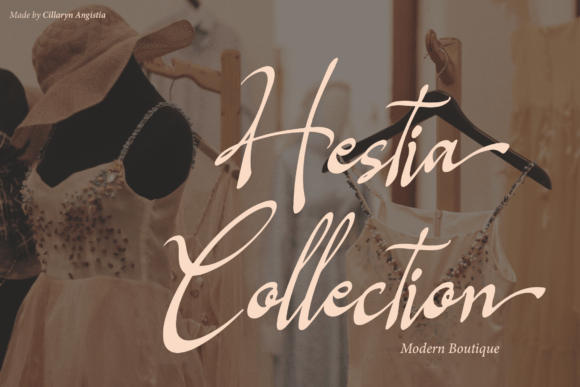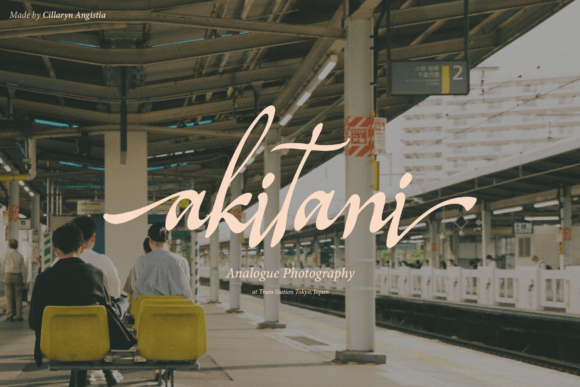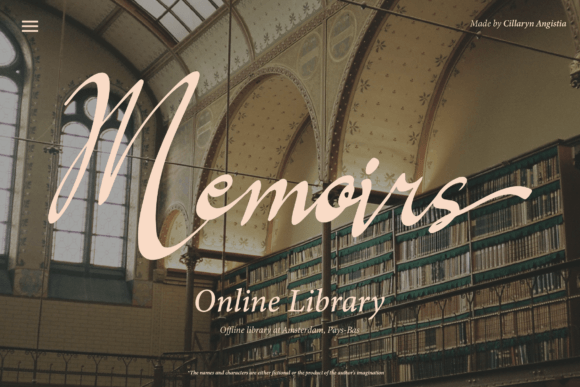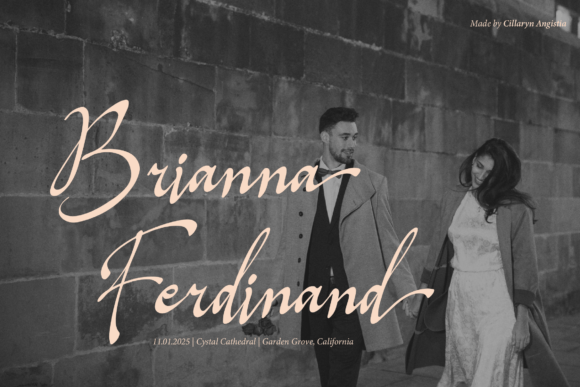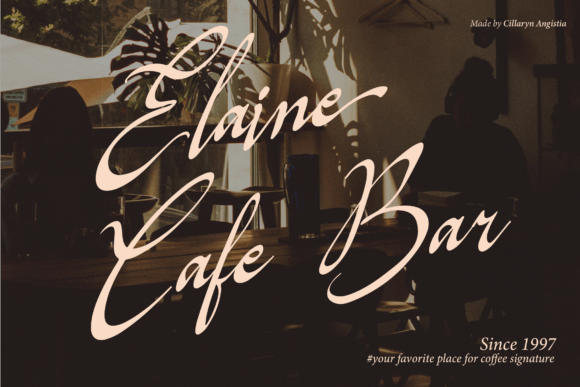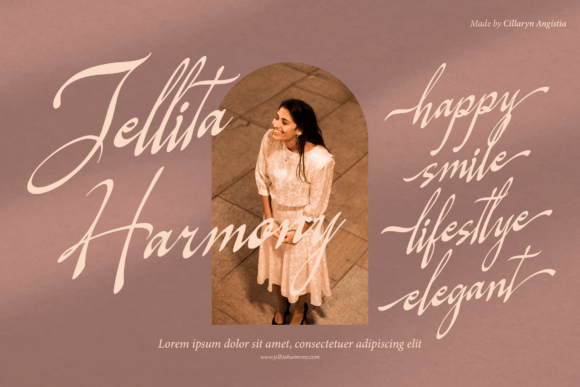
The Perfect Blend of Style and Sophistication
Have you ever stared at a blank canvas, trying to decide on the perfect font to bring your design to life? The blank page can be intimidating, but sometimes it’s exactly what we need to spark our creativity. That’s when the right font can make all the difference. For designers looking to add a touch of elegance and sophistication to their work, Cillaryn Angistia Font is the perfect solution.
This stylish and modern signature font is designed to make a statement. With its smooth curves and clean lines, it’s perfect for adding a classy, personal touch to designs like logos, invitations, or branding. Whether you’re a seasoned designer or just starting out, Cillaryn Angistia Font is a valuable addition to any toolkit.
Cillaryn Angistia Font Key Features
- Font Family: Cillaryn Angistia Font is a unique script font family that includes multiple styles and weights.
- Size: The font family includes various sizes, from 8-point to 72-point, making it suitable for various design applications.
- Resolution: Supports high-resolution printing, ideal for commercial printing, and digital displays.
- Unique Characteristics: Features a hand-drawn, elegant script style with a modern twist, perfect for creating eye-catching designs.
- Language Support: Supports multiple languages, including Latin-based languages, making it a versatile font for global designs.
Cillaryn Angistia Font Review
I’ve had the chance to work with the Cillaryn Angistia font, and I must say it’s an interesting addition to any design project. ✨ Here are some aspects where it truly shines:
- Unique aesthetic**: The Cillaryn Angistia font offers a distinctive look that can add a touch of sophistication to any text-based element.
- Wide character set**: It supports a wide range of languages, making it a great choice for multilingual projects.
- Good legibility**: The font is generally easy to read, even at smaller font sizes.
- Not suitable for body text**: Due to its unique style, the Cillaryn Angistia font might be overwhelming when used for large blocks of text.
- Limited font weights**: The font family is relatively small, which can limit your design options.
Overall, the Cillaryn Angistia font is a great choice for projects where a bold, eye-catching font is needed. While it may not be the best fit for every project, it’s definitely worth considering for the right design.
Tips for Getting the Most Out of Cillaryn Angistia
For optimal results, use the Cillaryn Angistia font in headings and titles to create a visually striking effect.
Pair the font with a clean and simple design to avoid overwhelming the viewer.
Experiment with different font sizes and colors to create a unique look that suits your project’s tone and style.
Cillaryn Angistia is ideal for:
Graphic design projects, such as brochures, flyers, and posters.
Branding and logo design, where a unique and eye-catching font is needed.
Lato is a sans-serif font designed by Łukasz Dziedzic in 2010. It is suitable for use in corporate and editorial designs, as well as for digital products. Lato has a clean and modern feel, but is more rounded and friendly compared to Cillaryn Angistia Font.
Comparison: Lato is more rounded and friendly, while Cillaryn Angistia Font has a more angular and elegant feel. Lato is also more suitable for corporate and editorial designs.
Open Sans is a sans-serif font designed by Steve Matteson in 2010. It is widely used in digital products, such as mobile apps, websites, and social media platforms. Open Sans has a clean and modern feel, but is more neutral and less distinctive compared to Cillaryn Angistia Font.